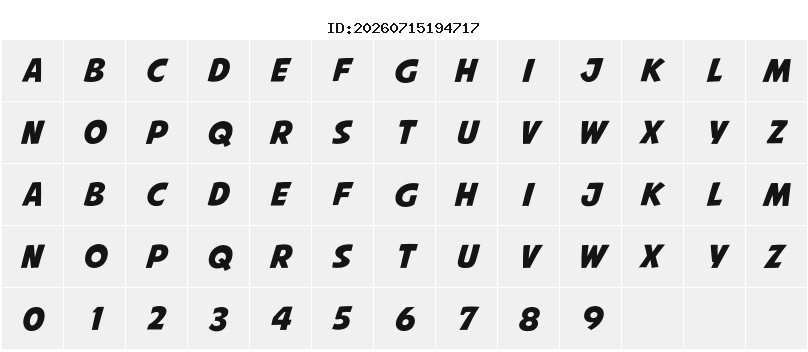
Avengeance Mightiest Avenger Preview
• Font Name: Avengeance Mightiest Avenger
• Full Font Name: Avengeance Mightiest Avenger
• PostScript Name: AvengeanceMightiestAvenger
• Manufacturer: The Fontry
About Avengeance Mightiest Avenger.otf
Avengeance Mightiest Avenger.otf is a modern, elegant sans-serif font designed for ultimate readability and visual harmony. Perfect for branding, headlines, web design, and print materials.